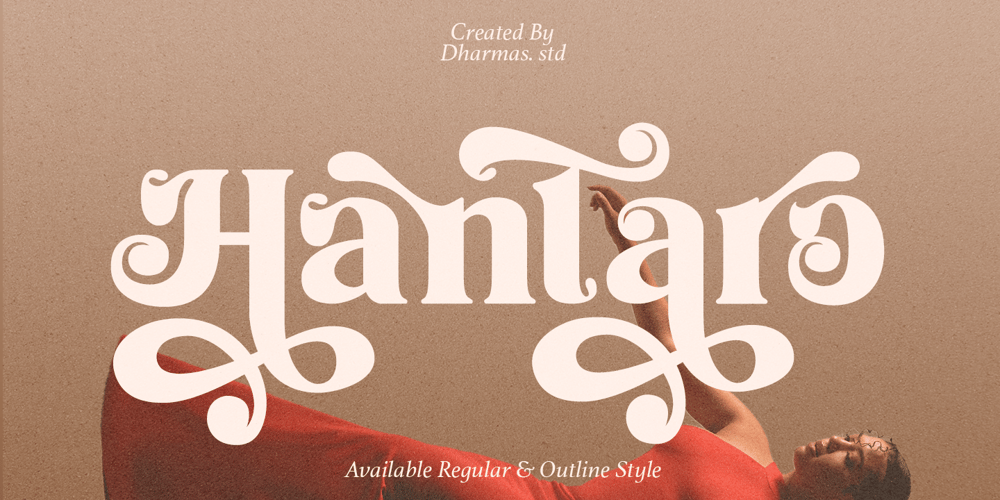
Hantaro Font Family was designed by Ahmad Jamaludin and published by Ahmad Jamaludin. Hantaro contains 2 styles and family package options. Introducing Hantaro – A playfully nostalgic incredible vintage aesthetic typeface!Hantaro font has more than 150+ alternative characters and ligatures. This versatile and playful display font is very suitable as a logo, title, branding, posters, t-shirts, etc.This font is PUA encoded which means you can access all of the glyphs and swashes with ease. I’ve been loving combining the Regular and Outline, whether all in word or body text!What’s Included? Hantaro main files 150+ Special Alternates and Ligatures Instructions (Access special characters in all apps, even in Cricut Design) Accessible in Adobe Illustrator, Adobe Photoshop, Microsoft Word even Canva! PUA Encoded Characters. Fully accessible without additional design software Language Support: Danish, English, Estonian, Filipino, Finnish, French, Friulian, Galician, German, Gusii, Indonesian, Irish, Italian, Luxembourgish, Norwegian Bokmål, Norwegian Nynorsk, Nyankole, Oromo, Portuguese, Romansh, Rombo, Spanish, Swedish, Swiss-German, Uzbek (Latin)Thank youDharmas Studio